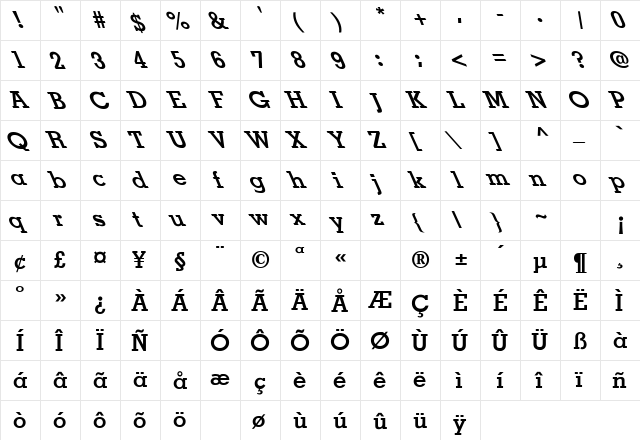
Memphis-Bold Left Regular
Memphis-Bold Left offers clean, dependable letterforms without strong stylistic allegiance, making it a practical choice for designers who need flexibility. The heavy weight commands attention and anchors typographic hierarchies.